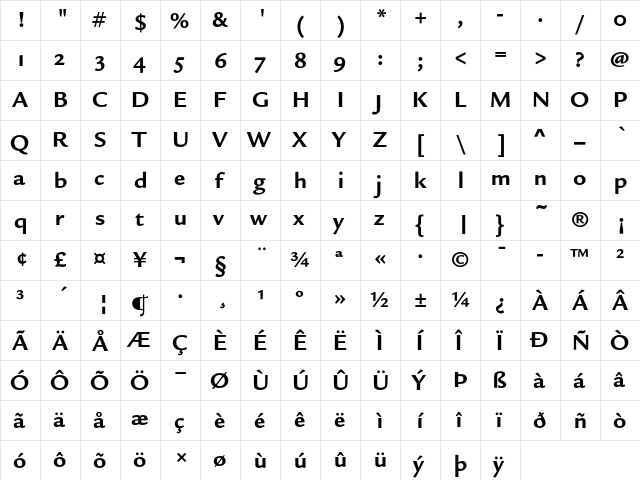
Legacy Sans ITC Bold OS
Design Context for Legacy Sans ITC Typeface
Legacy Sans ITC is a composed and adaptable typeface that performs quietly and consistently across a wide range of design contexts. Its bold stroke weight gives it real presence on the page.